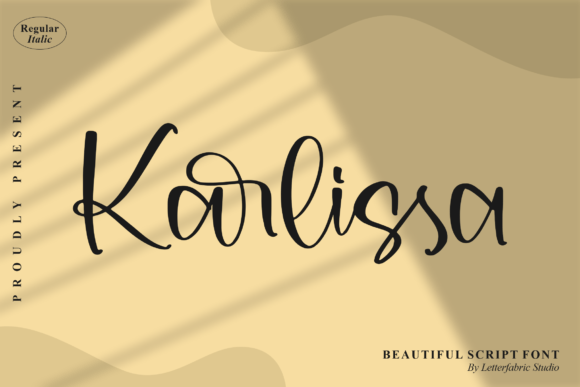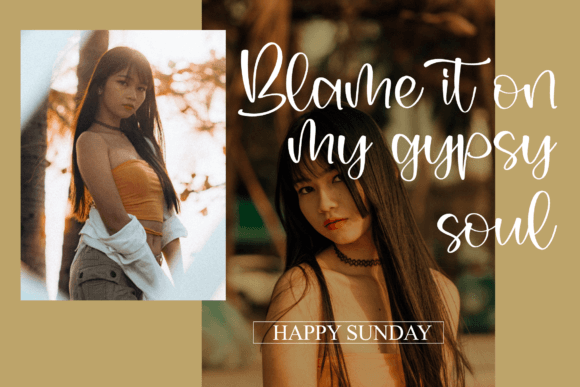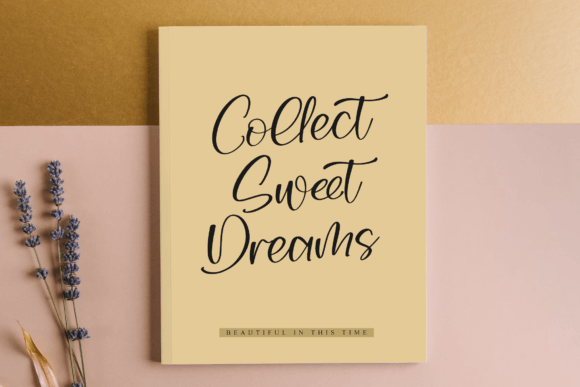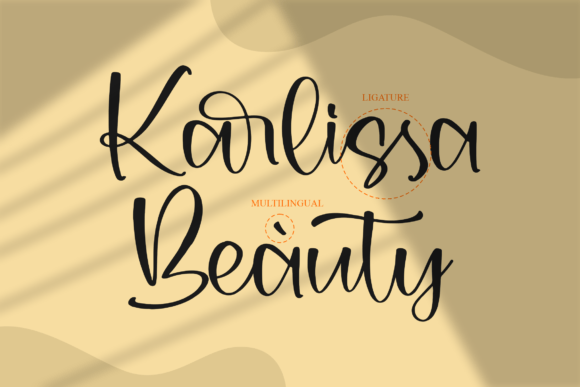
About Karlissa Font
Karlissa is a beautiful handwritten font that adds a touch of elegance to various creative projects. Tailored for versatility, this font is well-suited for a wide range of applications, including logos, branding projects, homeware designs, product packaging, mugs, quotes, posters, shopping bags, t-shirts, book covers, name cards, invitation cards, greeting cards, labels, photography, watermark, special events, and more.
The charm of Karlissa lies in its graceful script style, making it an excellent choice for projects that demand a beautiful and sophisticated touch. Whether you’re working on a branding identity that requires a unique and personalized font or crafting invitations for special events, Karlissa brings a script taste that elevates the overall aesthetic.
Its adaptability shines through in applications such as product packaging and homeware designs, where Karlissa adds a layer of visual appeal and contributes to a cohesive and stylish look. Similarly, for quotes and posters, the font’s beautiful script enhances the message with elegance and flair.
Karlissa is not limited to digital media; it seamlessly transitions to print materials like name cards, greeting cards, and book covers. Its readability and aesthetic qualities make it a versatile choice for a diverse range of design projects.
Whether used in small details like labels or prominent elements like t-shirts, Karlissa’s beautiful script enhances the visual impact of your projects. The font is crafted to bring a unique and lovely touch to all your creative endeavors, creating a cohesive and captivating design language.
In summary, Karlissa is more than just a font; it’s a design asset that adds beauty and sophistication to your projects. Let Karlissa be the choice that brings a beautiful script taste to your logos, branding, and a myriad of creative works, enhancing them with elegance and charm.